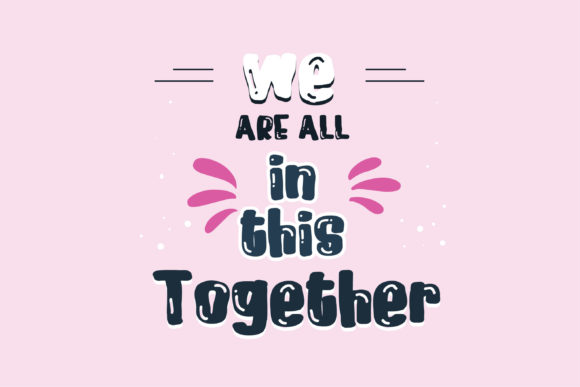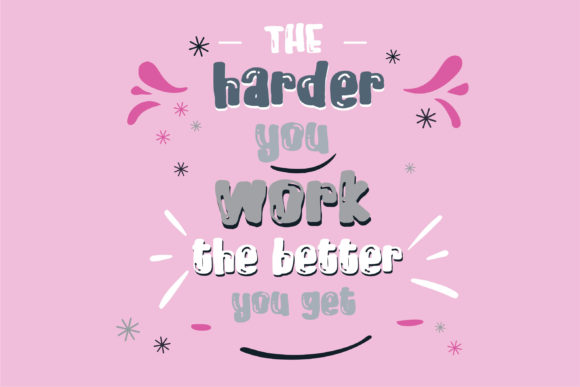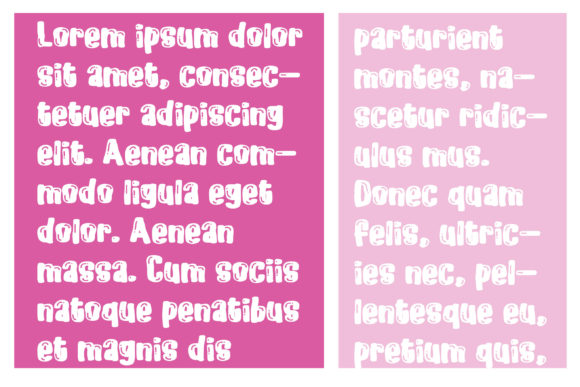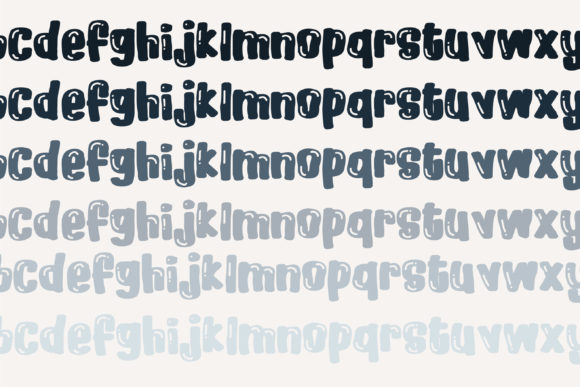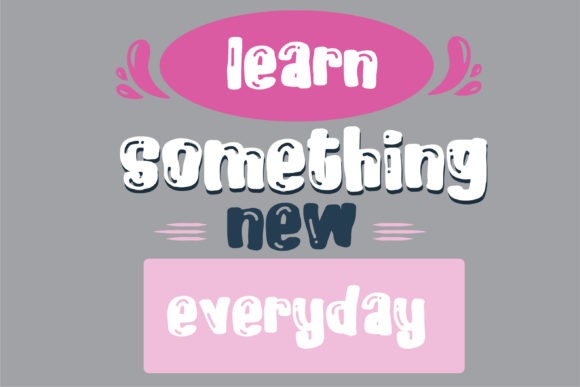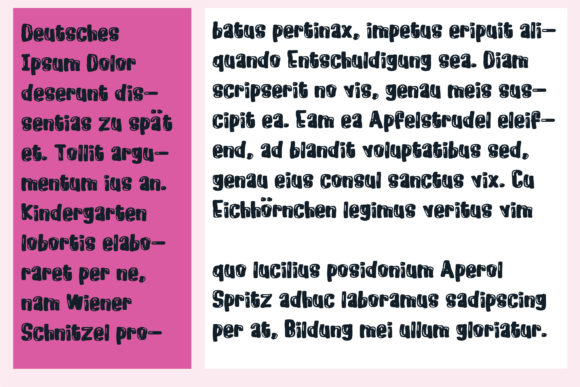
Bubblegum Font: Add a Playful Touch to Your Creative Projects
Are you looking for a font that can add a youthful and playful feel to your creative projects? Look no further than the Bubblegum Font! This whimsy hand-crafted display font is designed to resemble chunky bubblegum, making it perfect for designers and crafters who want to add a fun and quirky touch to their work.
What is Bubblegum Font?
Bubblegum Font is a unique and eye-catching display font that is hand-crafted to give it a distinctive, handmade feel. The font features chunky, rounded letters that are reminiscent of bubblegum, making it perfect for projects that require a playful and youthful vibe.
Characteristics of Bubblegum Font
The Bubblegum Font has several characteristics that make it stand out from other fonts. Some of its key features include:
- Hand-crafted design: Each letter is carefully crafted by hand to give the font a unique, handmade feel.
- Chunky and rounded letters: The font features thick, rounded letters that are reminiscent of bubblegum.
- Playful and youthful feel: The font is designed to add a fun and playful touch to your creative projects.
- Perfect for display text: The Bubblegum Font is ideal for use in display text, such as headings, titles, and captions.
Uses for Bubblegum Font
The Bubblegum Font is versatile and can be used in a variety of creative projects, including:
- Graphic design: Use the font in your graphic design projects, such as brochures, flyers, and posters.
- Crafting: Add a playful touch to your crafting projects, such as scrapbooking, card making, and DIY signs.
- Digital design: Use the font in your digital design projects, such as social media graphics, blog posts, and website headers.
- Branding: Use the font to create a fun and playful brand identity for your business or product.
Tips for Using Bubblegum Font
Here are some tips for using the Bubblegum Font in your creative projects:
- Use it sparingly: The Bubblegum Font is best used sparingly, such as in headings or titles, to add a playful touch to your project.
- Pair it with a simple font: Pair the Bubblegum Font with a simple font, such as Arial or Helvetica, to create a striking contrast.
- Experiment with colors: Have fun experimenting with different colors to find the perfect combination for your project.
- Be creative: Don’t be afraid to get creative and try out new and innovative ways to use the Bubblegum Font.
The Bubblegum Font is a unique and playful font that can add a youthful and fun touch to your creative projects. With its hand-crafted design, chunky and rounded letters, and playful feel, it’s perfect for designers and crafters who want to add a quirky touch to their work. Whether you’re working on a graphic design project, crafting, or digital design, the Bubblegum Font is sure to inspire your creativity and bring a smile to your face.